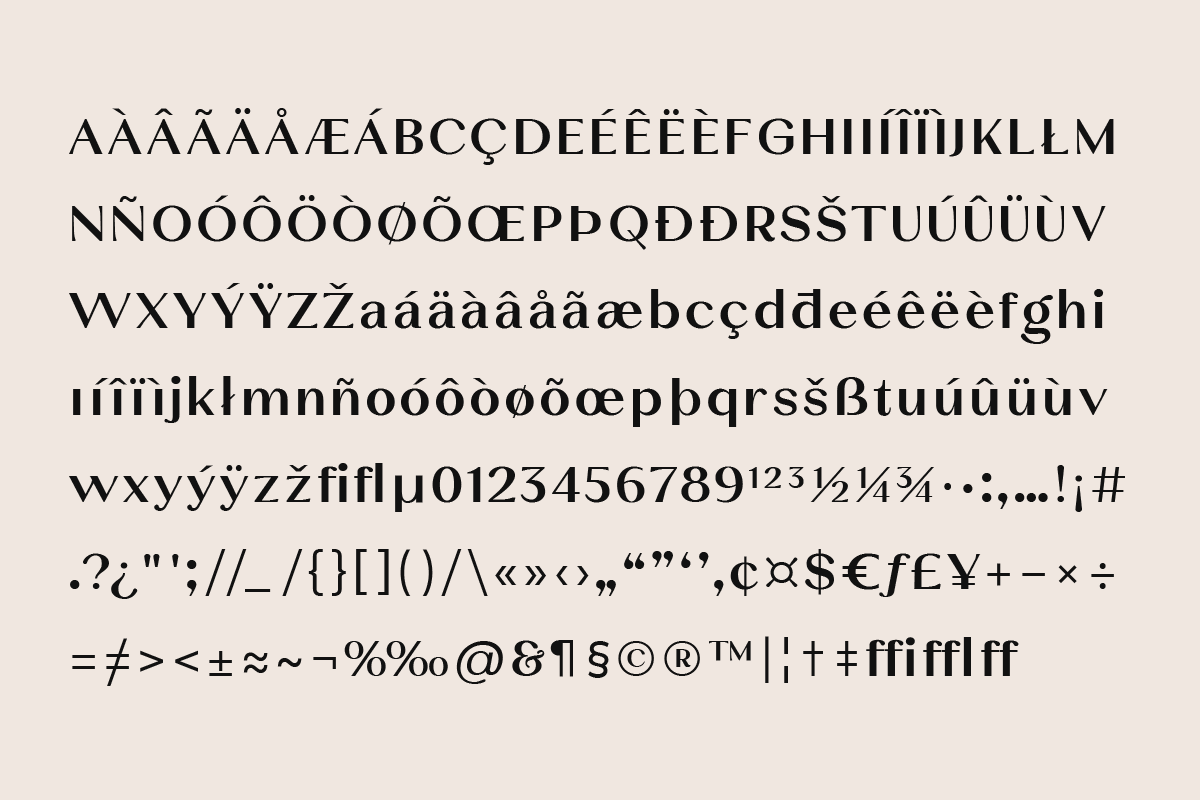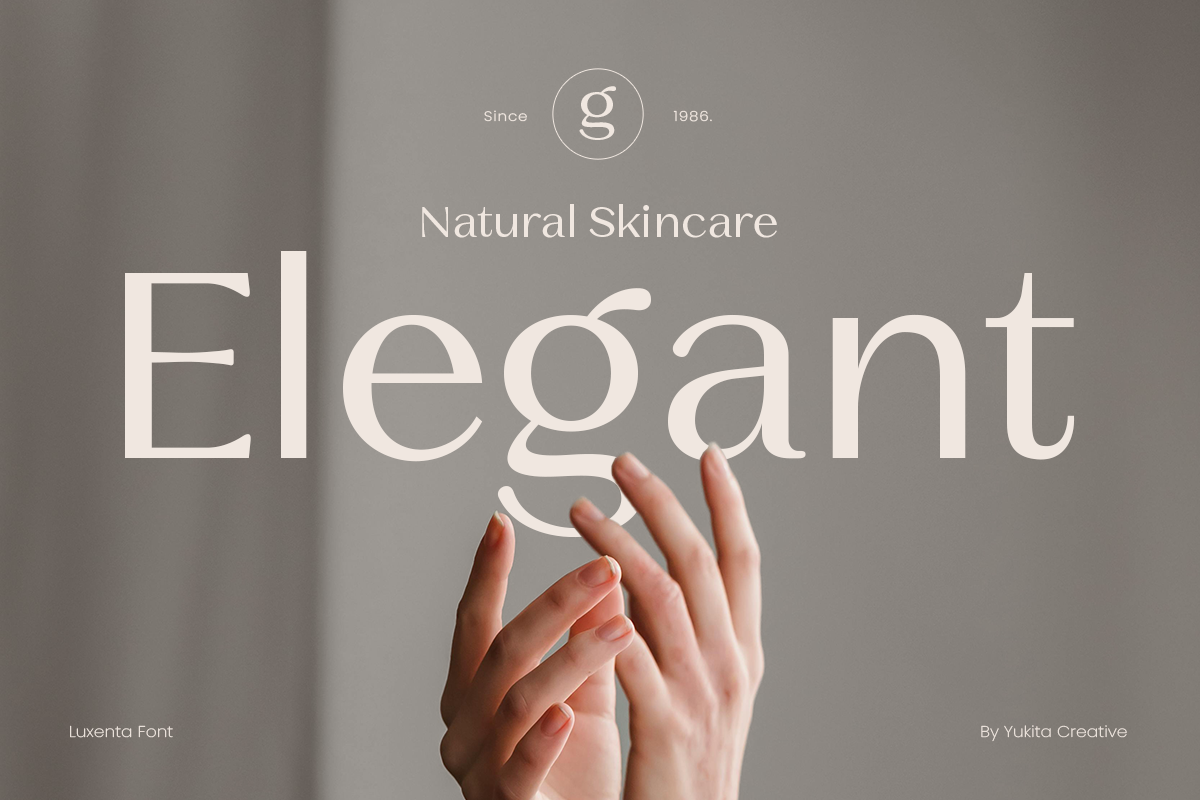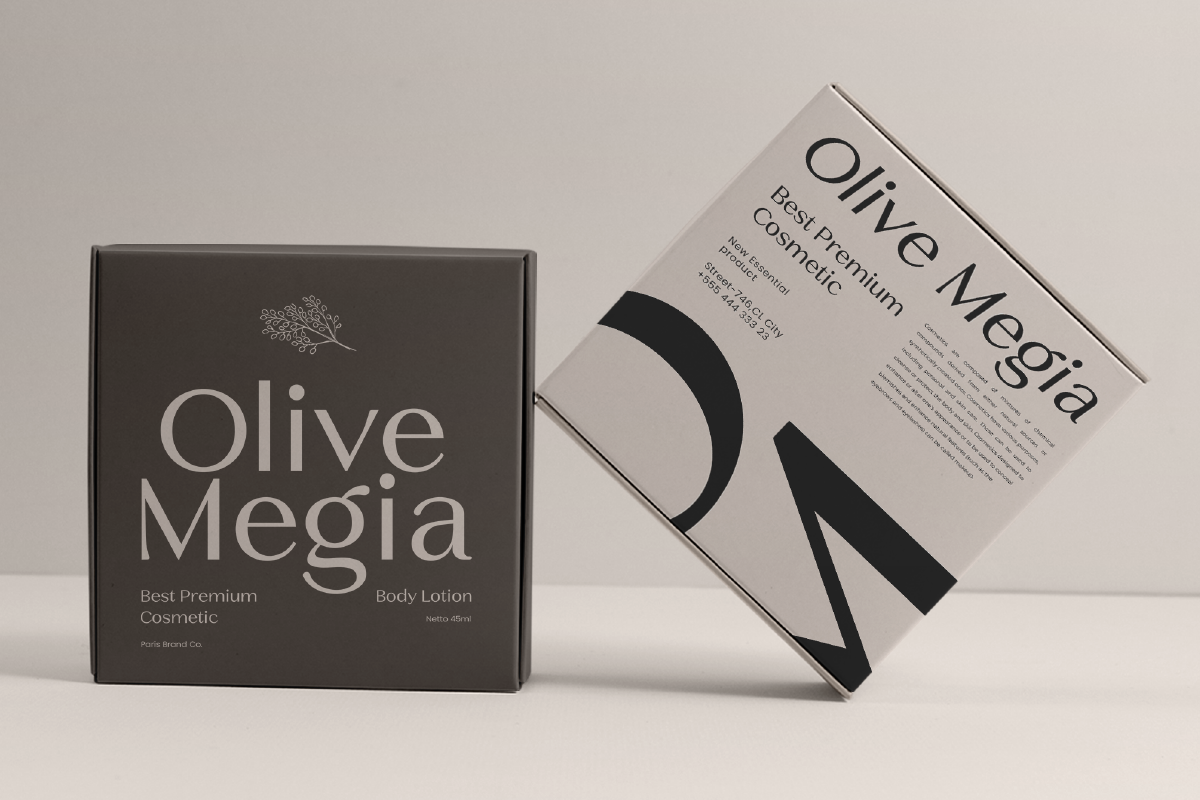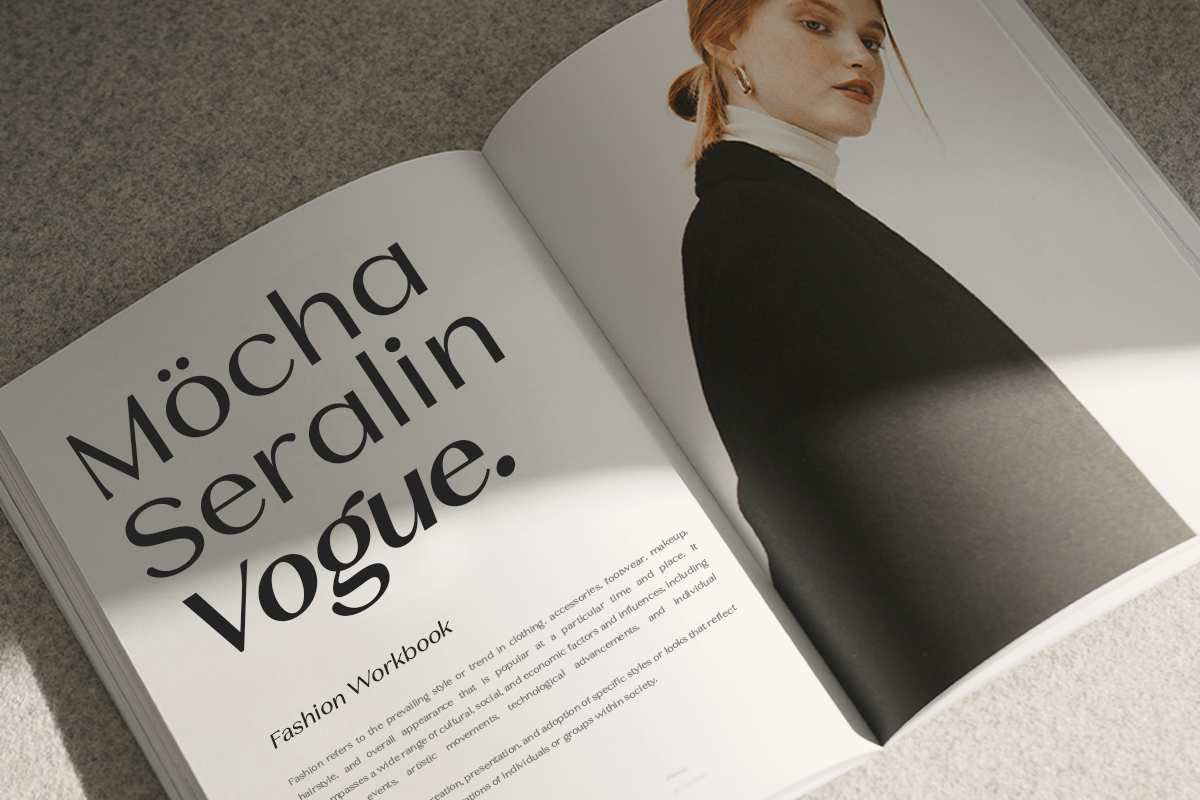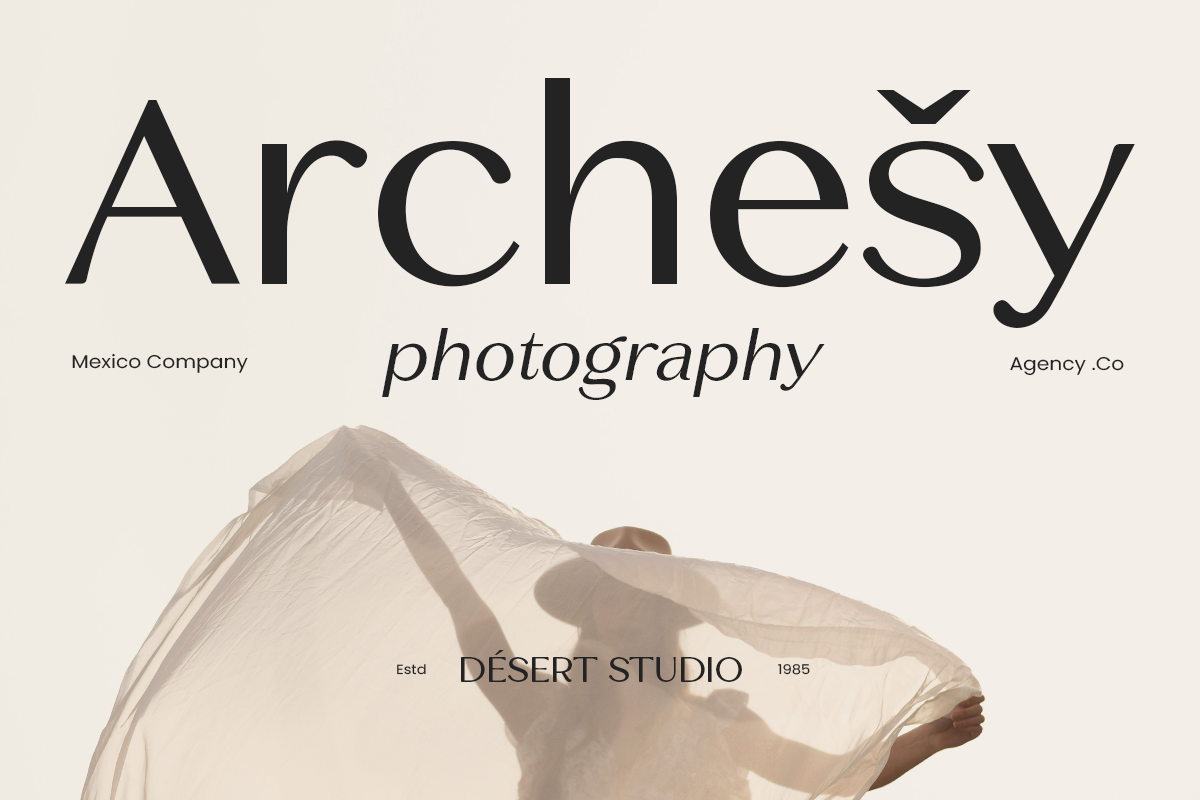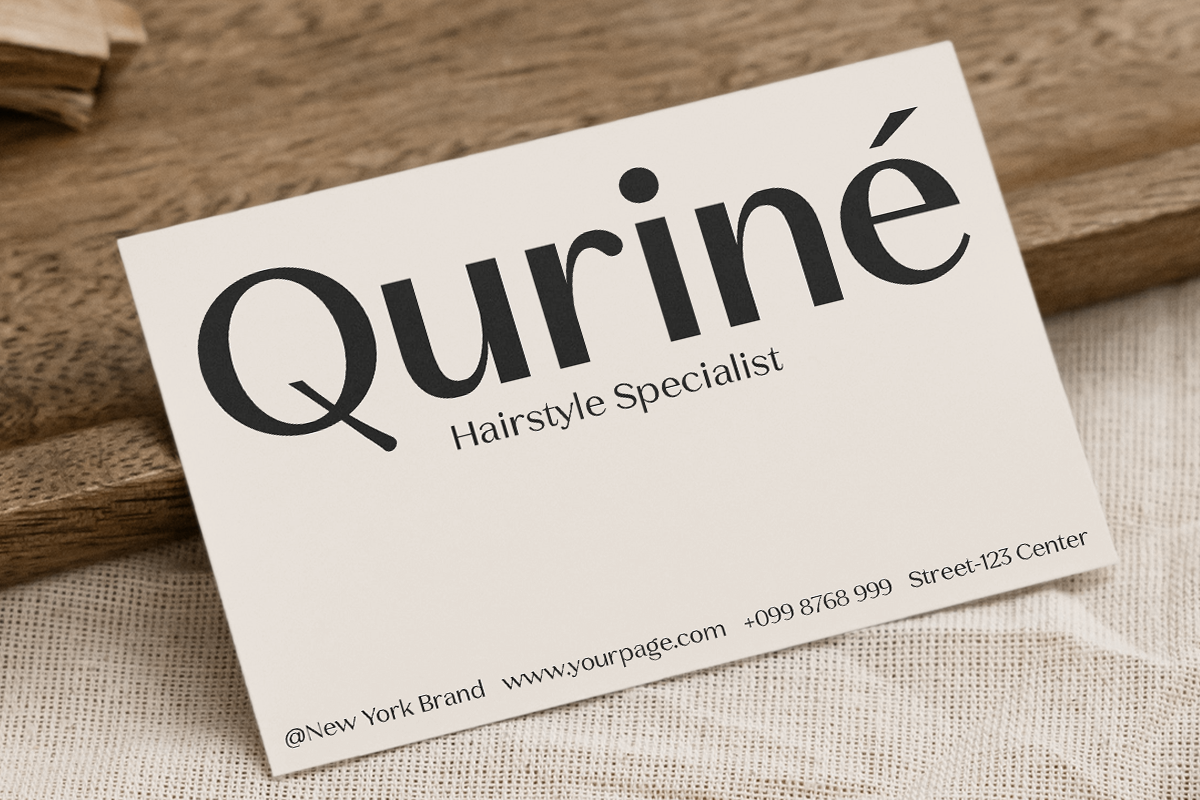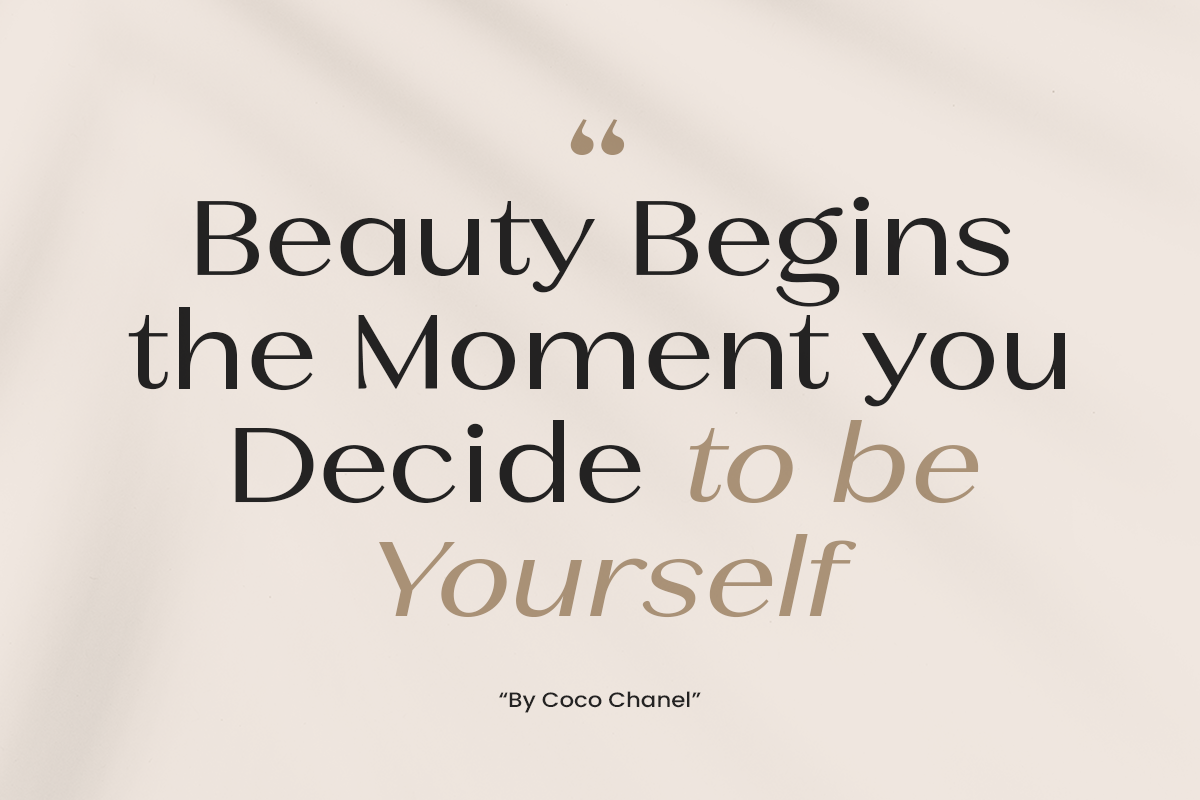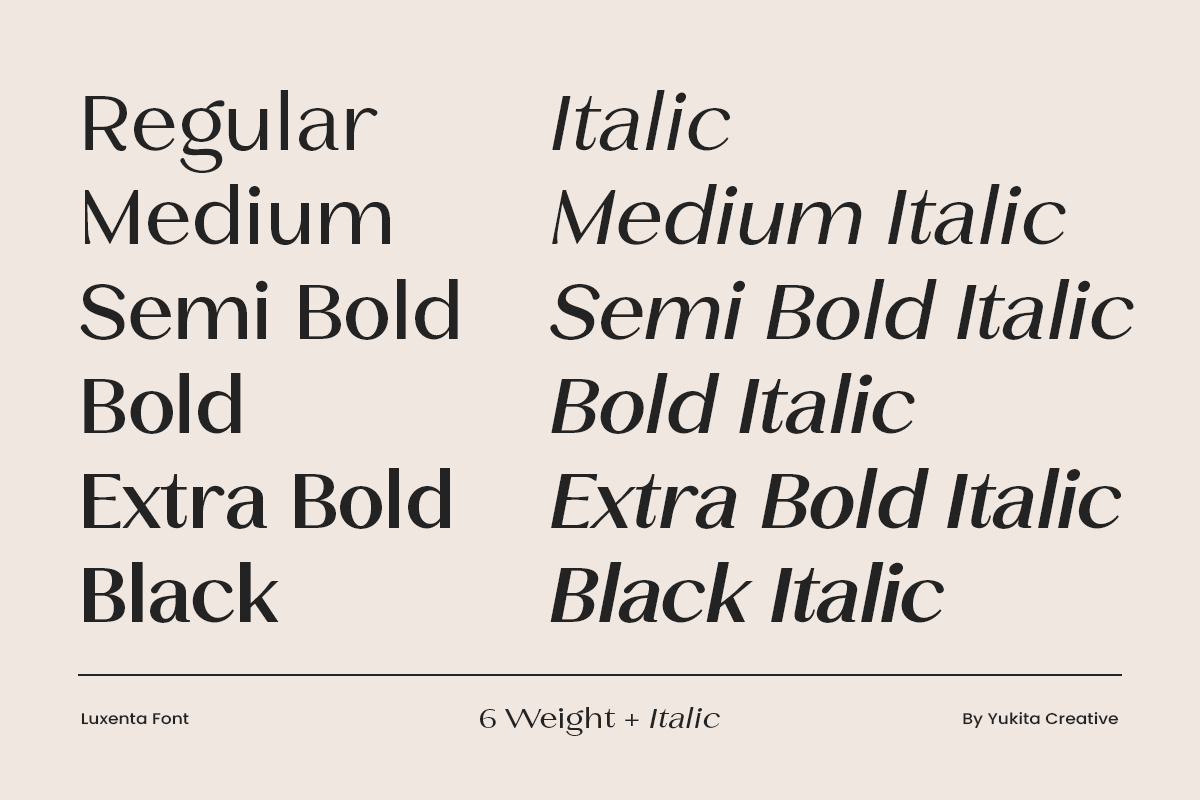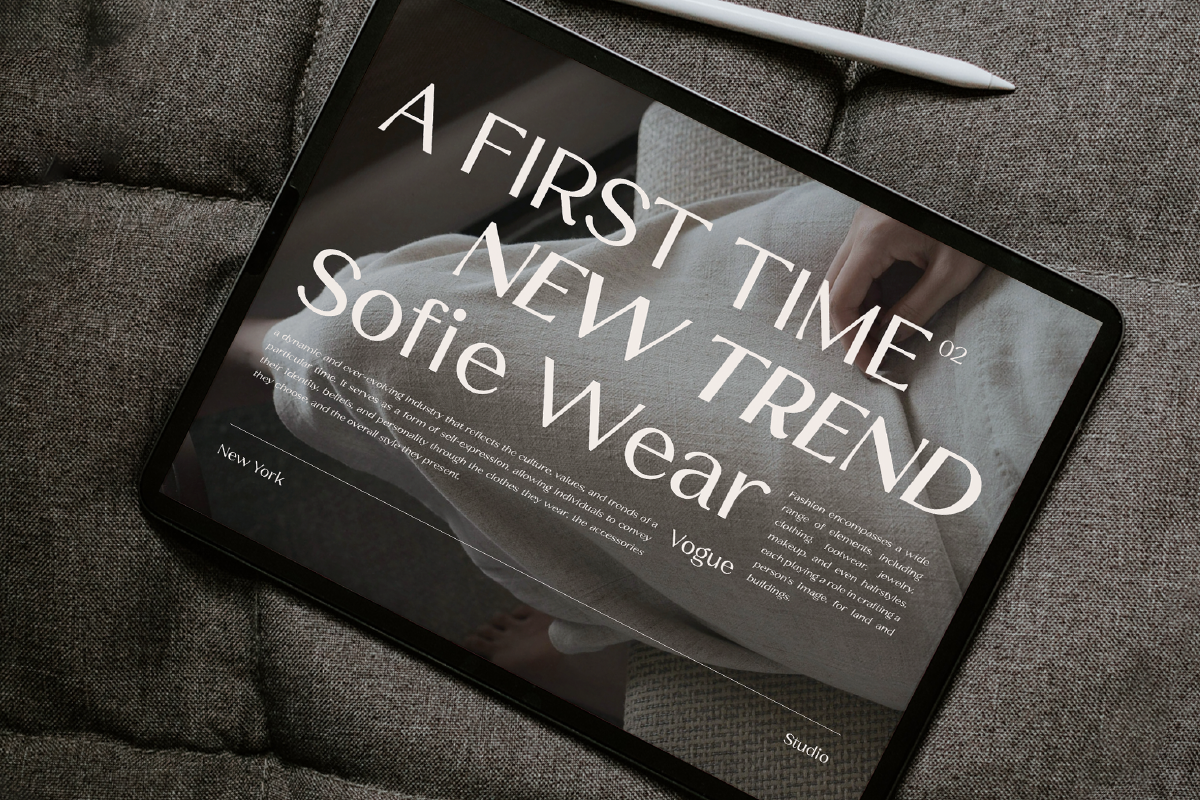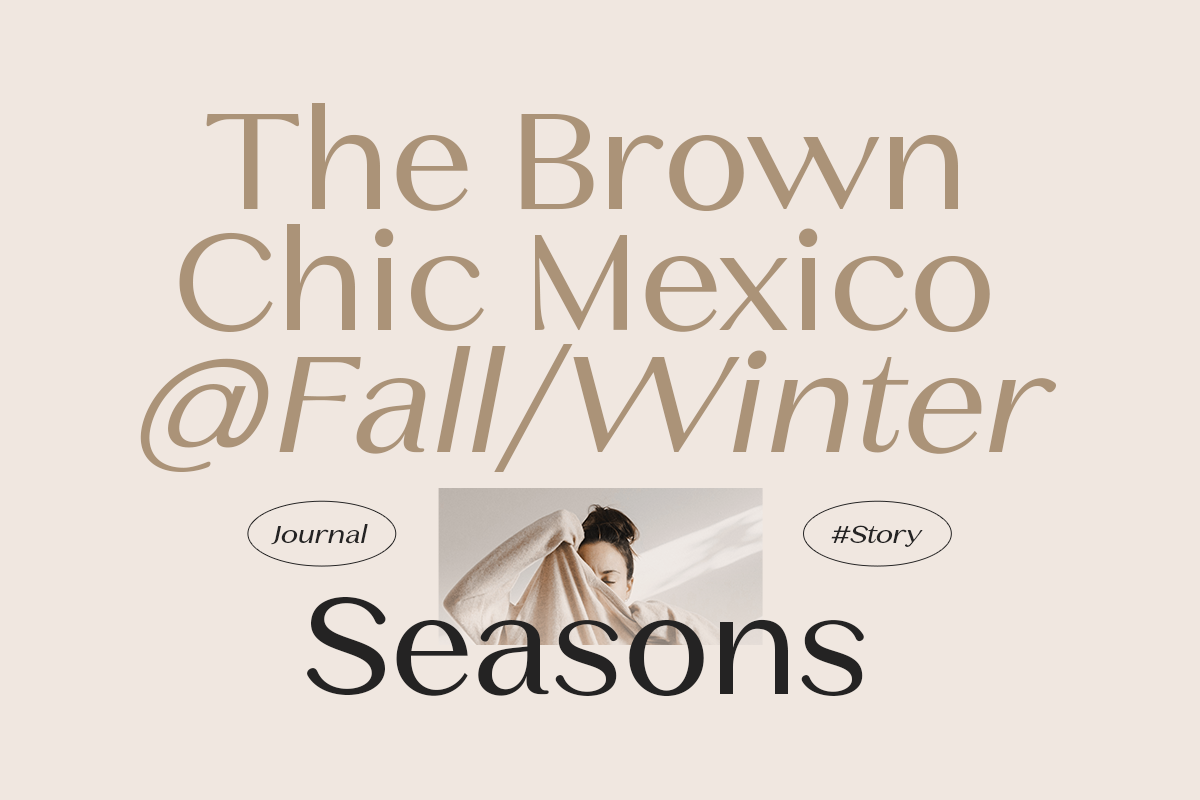
Luxenta - Elegant Sans Serif Family
Luxenta is an elegant sans serif font created to meet the design needs that emphasize aesthetics and class. With a modern and clean design, this font is the perfect choice for designers looking to add an elegant touch to their projects. It's ideal for branding, magazines, logos, and various design projects that demand an elegant and luxurious feel.
The Luxenta font comes in 6 weights, ranging from Regular to Black, as well as 6 oblique styles, offering flexibility for any design need. This combination of weights and styles provides a wide range of options to create striking and professional designs.
- 6 Weights: Regular, Medium, SemiBold, Bold, ExtraBold, Black
- 6 Oblique Styles for design variety
- Elegant characteristics, perfect for branding, graphic design, and projects requiring a modern aesthetic
Luxenta is the best solution for designers seeking a sans serif font with a luxurious, modern, and elegant touch.